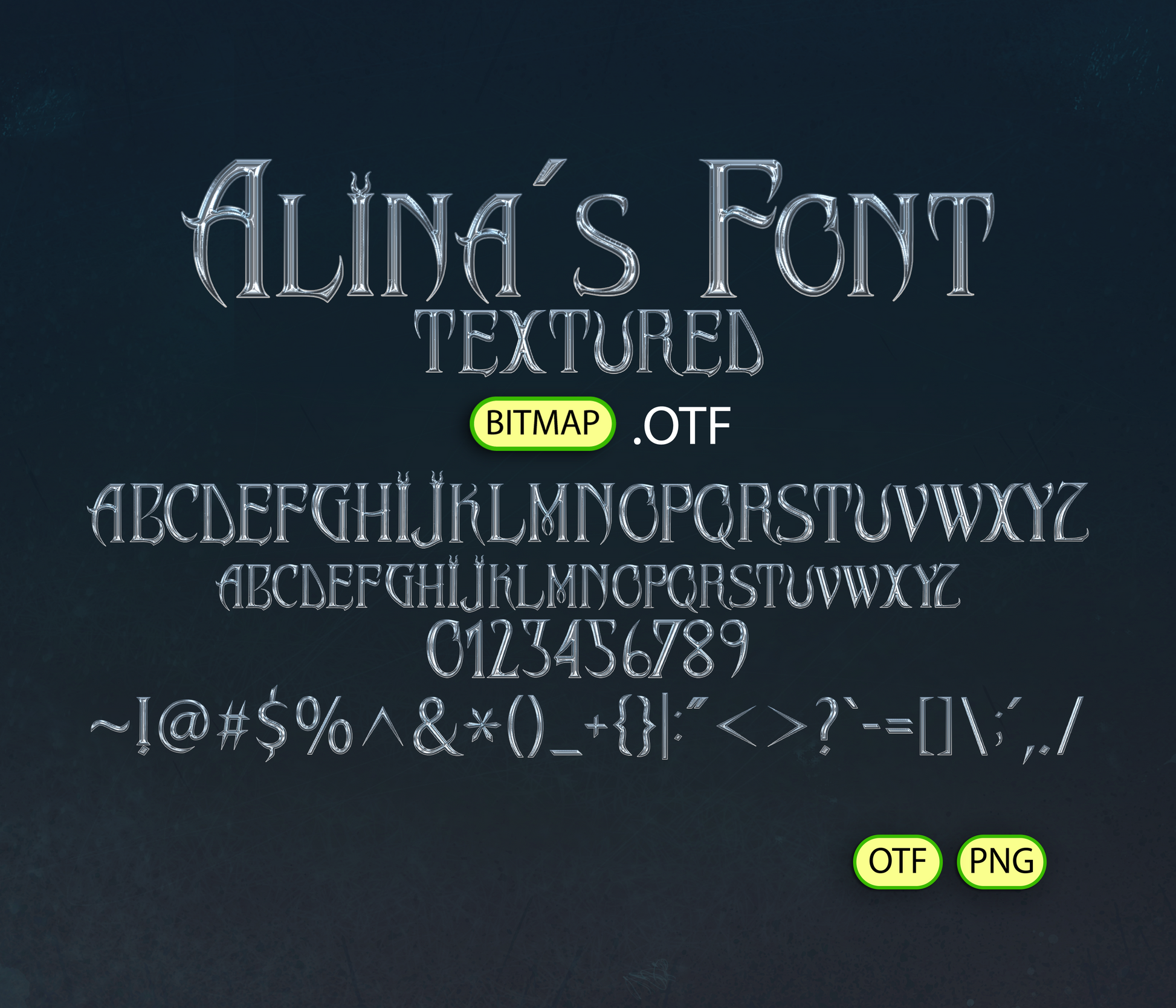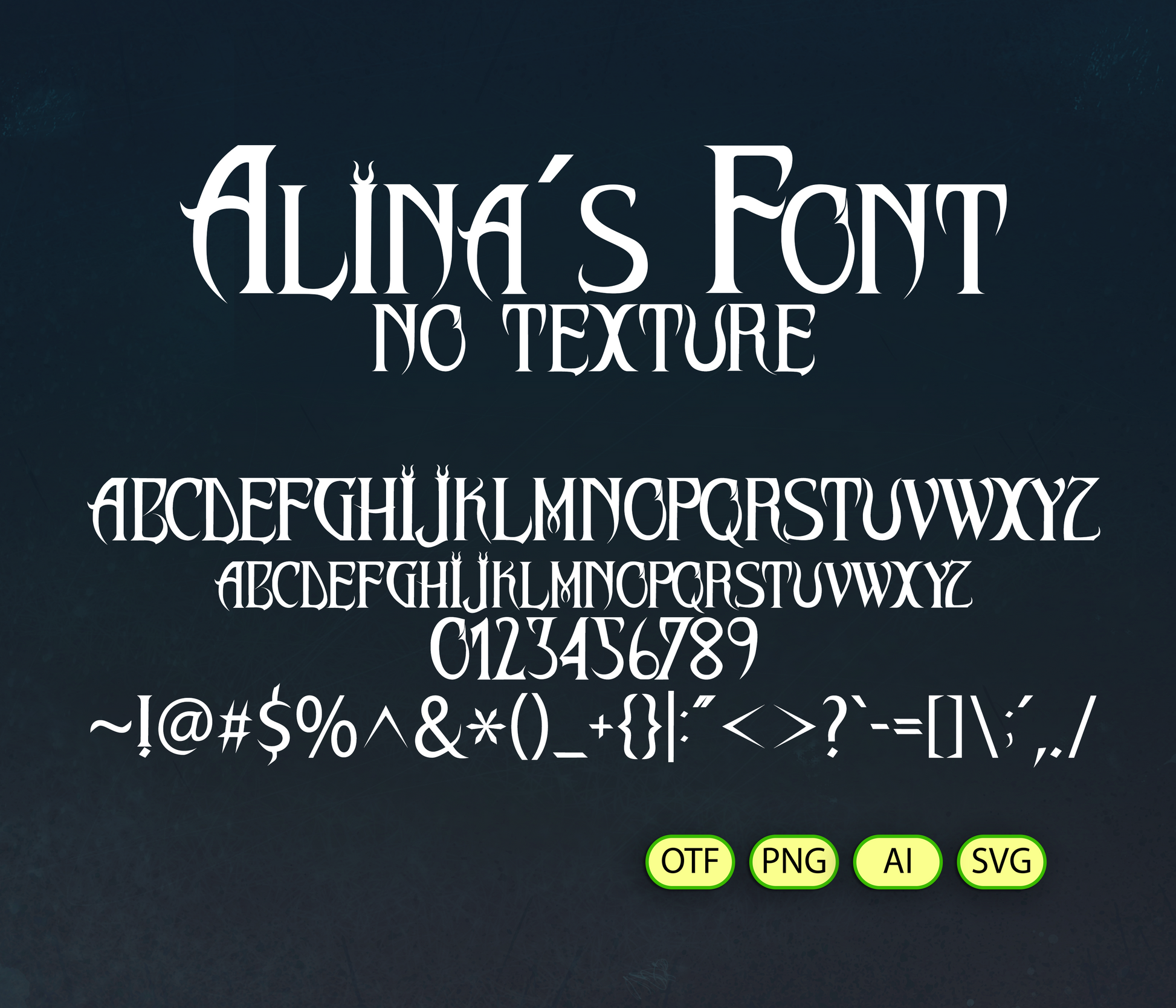
Enchanted Villainess Font Textured
Unleash the enchanting power of our Enchanted Villainess Textured Font—a unique bitmap font perfect for adding a touch of dark allure to your creative projects! Whether you're working on Cricut designs, custom apparel, or intriguing wall art, this font will transform the ordinary into the extraordinary.
Why Choose Our Villainess Font?
- Captivating Style: Inspired by iconic dark characters, our textured font brings a villainous aesthetic to any design.
- Versatile Applications: Ideal for Cricut projects, DIY decor, party invitations, and so much more.
- Design spellbinding custom apparel that stands out in a crowd.
- Create mesmerizing wall art or home decor that captivates your guests.
- Craft darkly alluring party invitations for your next themed event.
- Add a mystical touch to your scrapbooking or Halloween crafts.
This font is perfect for:
- Creating enchanting party decorations
- Designing custom apparel for fantasy enthusiasts
- Crafting unique greeting cards with a dark twist
- Making eye-catching social media graphics
- Personalizing accessories with a touch of magic
- Developing themed educational materials
- Designing logos for fantasy-inspired businesses
- Creating atmospheric website headers
- Crafting memorable invitations for costume parties
- Adding a mystical flair to DIY craft projects